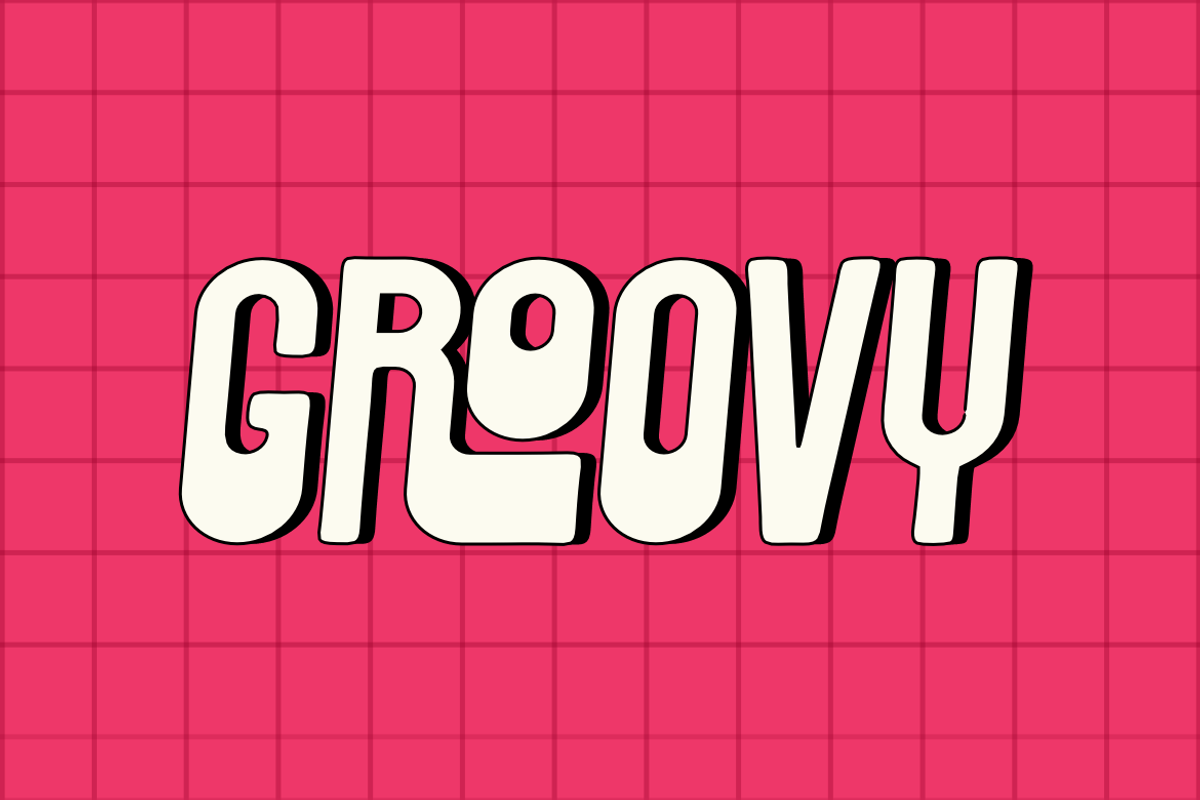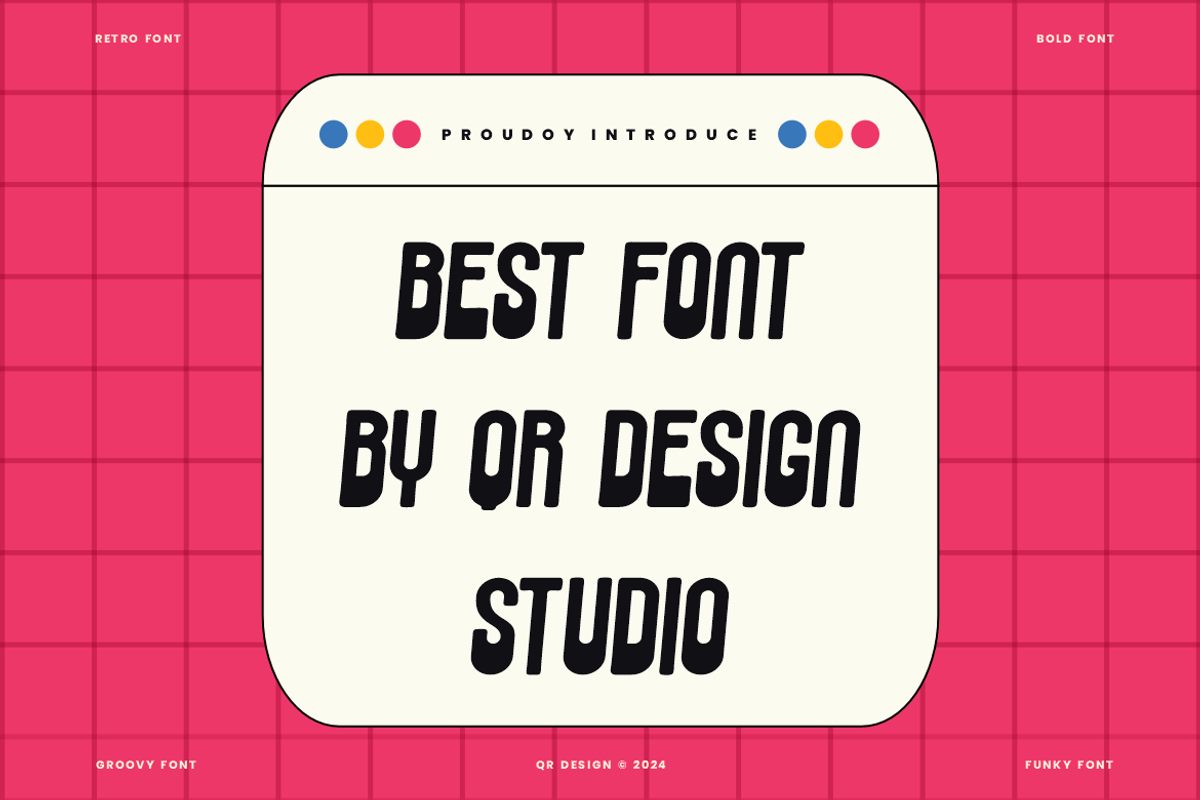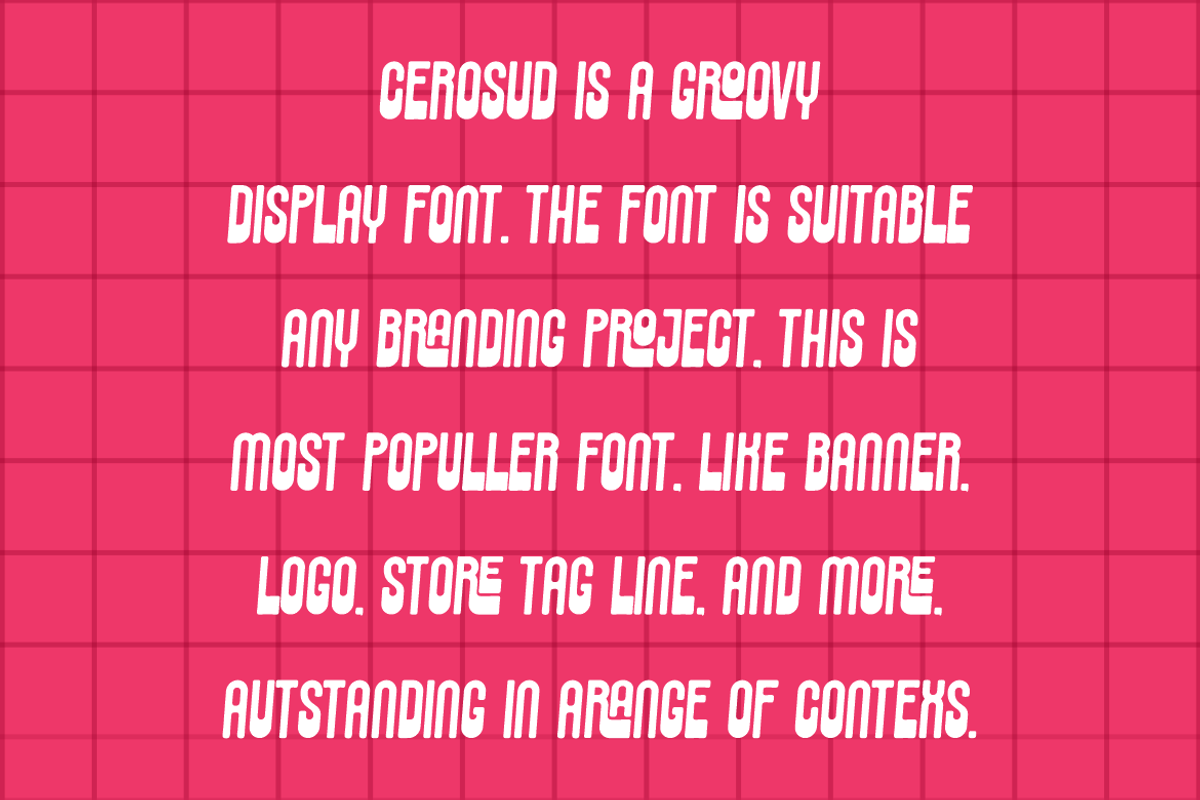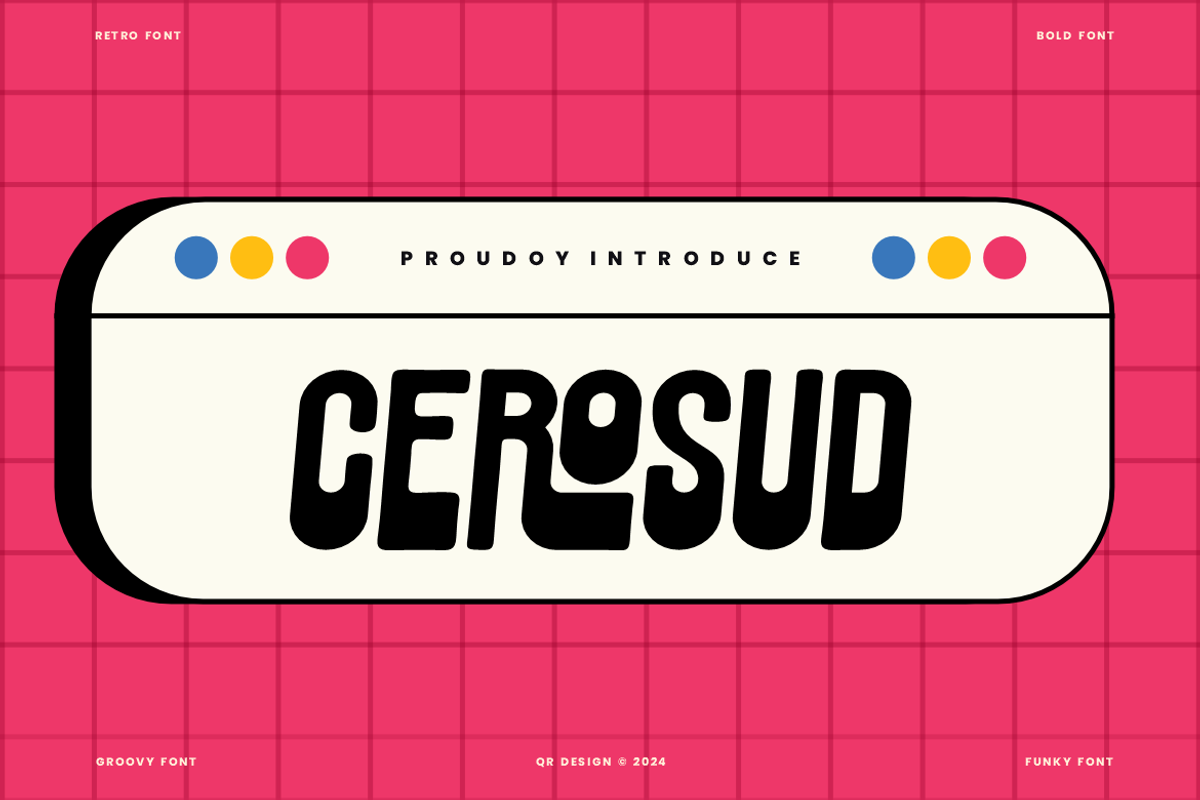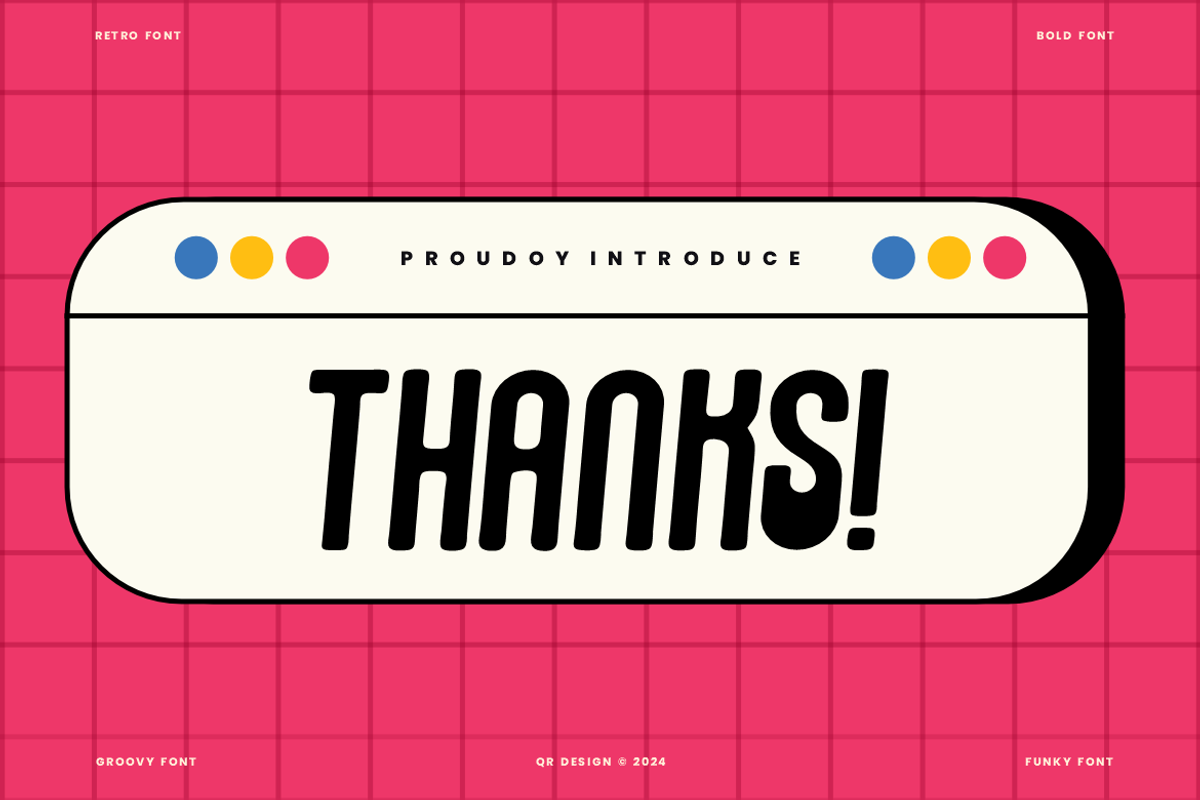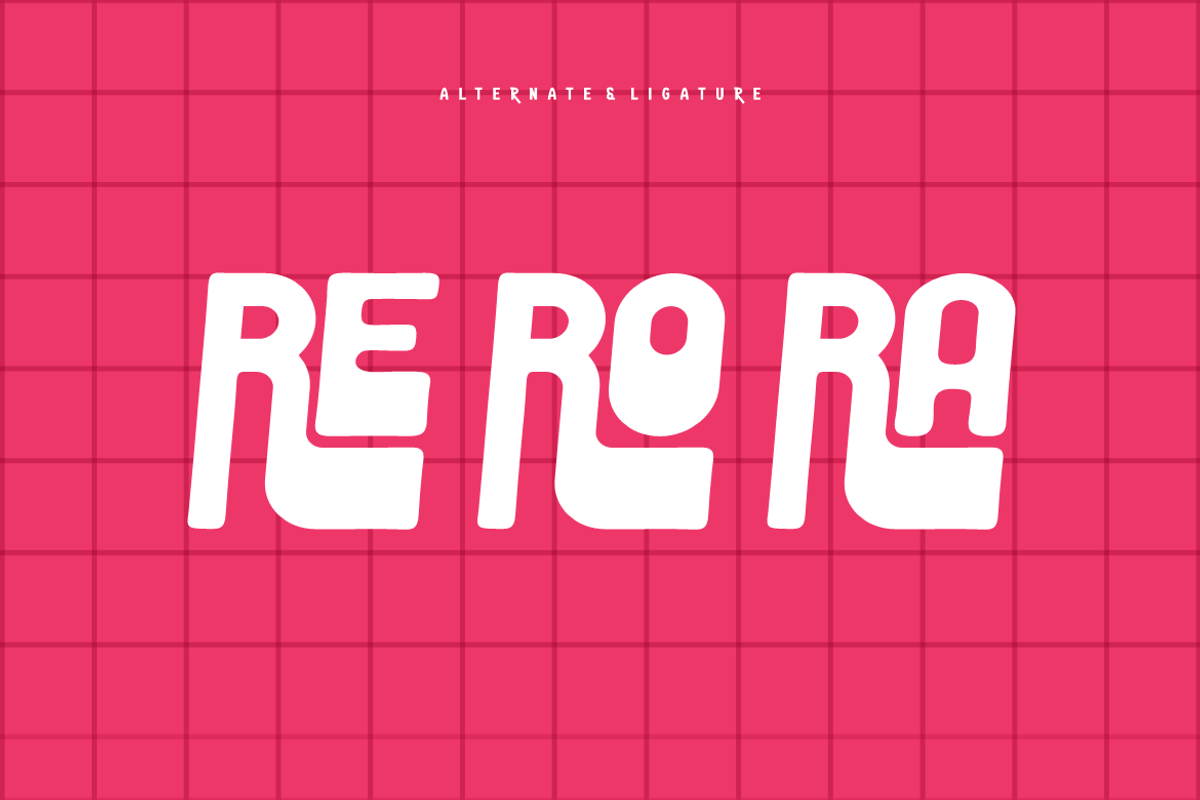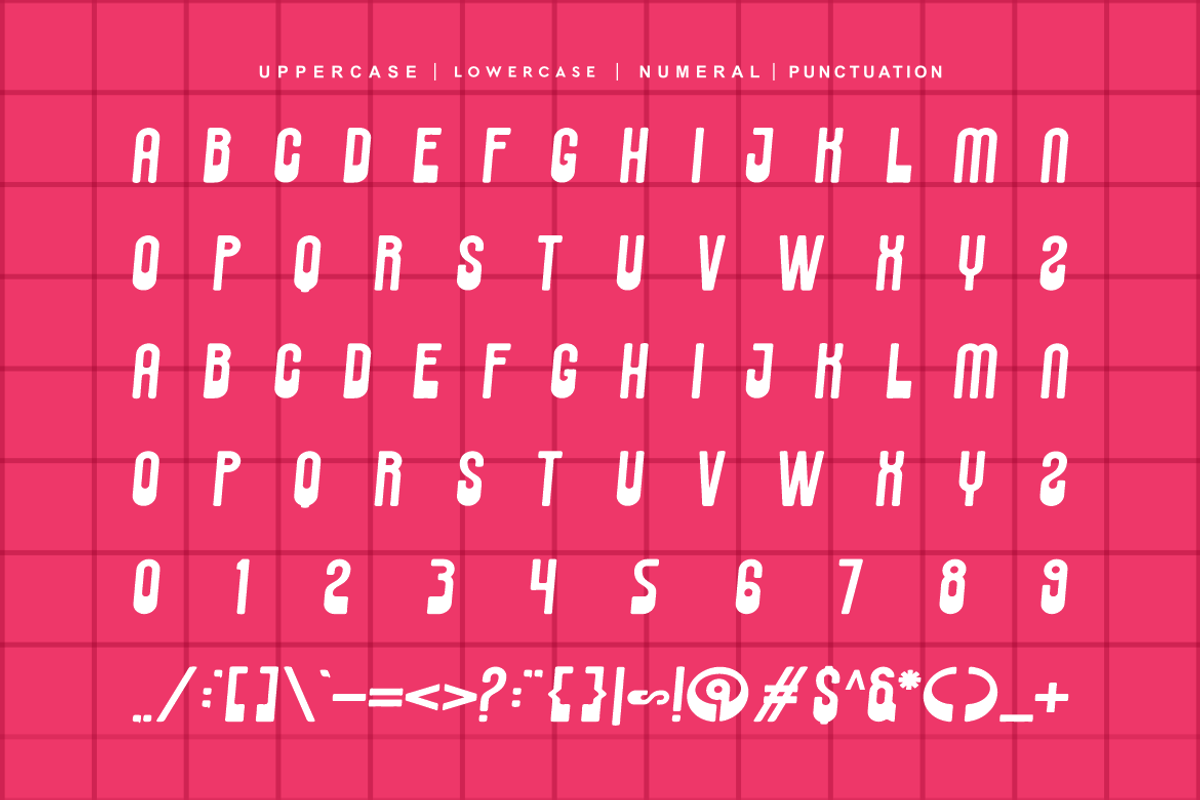
Cerosud - Groovy Font
Cerosud - Groovy Font is a bold and authentic display font. The font is suitable for any branding project like poster, logo, sport, and many more. Outstanding in a wide range of contexts.